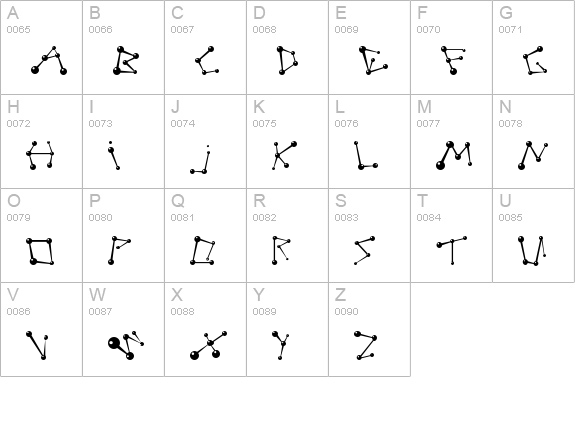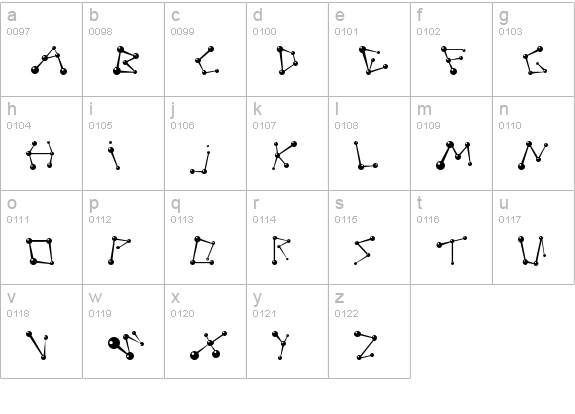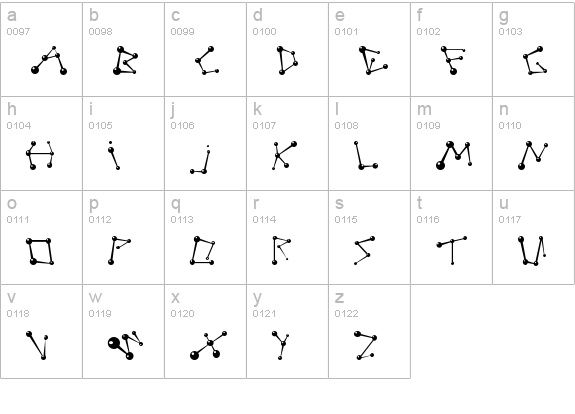
BPmolecules Font Details
Introducing BPmolecules font, a stunning typeface that exudes elegance and sophistication. With its sleek and modern design, this font is perfect for a wide range of projects, from branding and logo design to packaging and advertising. What sets BPmolecules apart is not only its captivating aesthetic but also its versatility. This font offers a wide range of weights and styles, allowing you to create unique and dynamic compositions that truly stand out. Whether you're looking for a bold and impactful headline or a subtle and refined body text, BPmolecules has you covered. But what truly sets BPmolecules apart is that it is free. That's right, this incredible font is available for anyone to download and use, completely free of charge. We believe that creativity should be accessible to all, and that's why we've made BPmolecules freely available to download at FontsMarket.com. So go ahead, unleash your creativity and elevate your designs with BPmolecules font. With its timeless beauty and endless possibilities, this font is sure to leave a lasting impression on your audience. Download BPmolecules today and let your imagination soar.